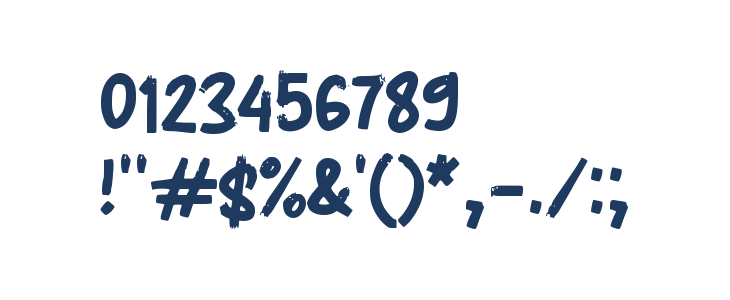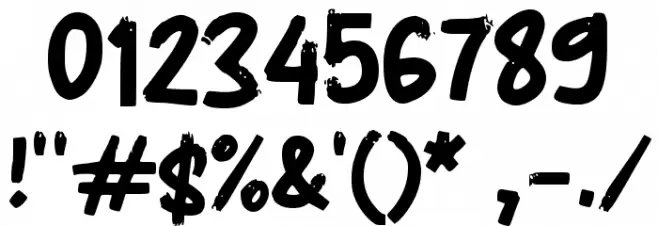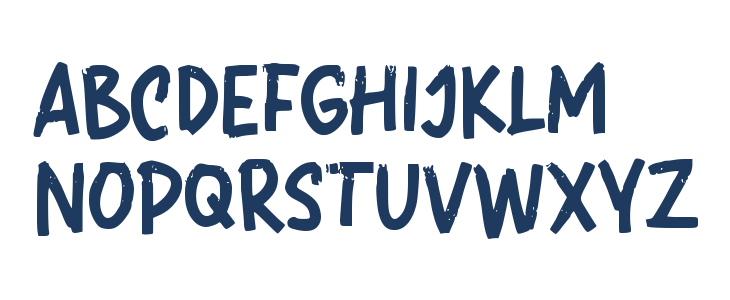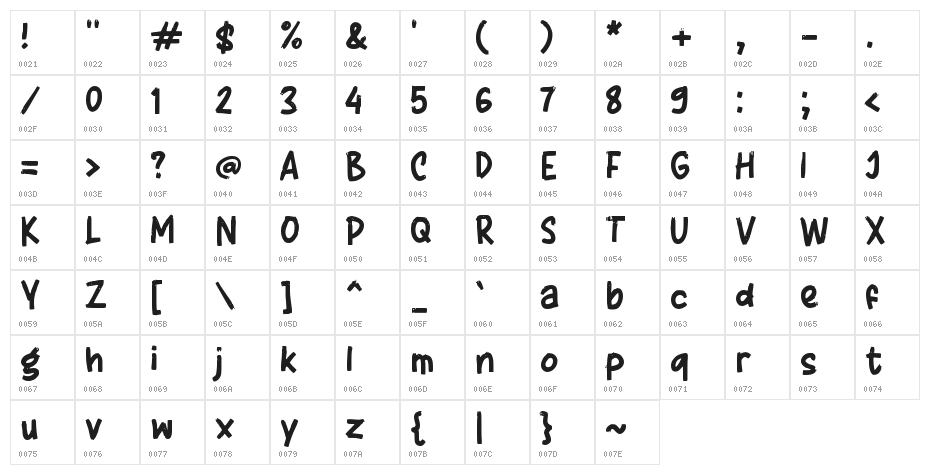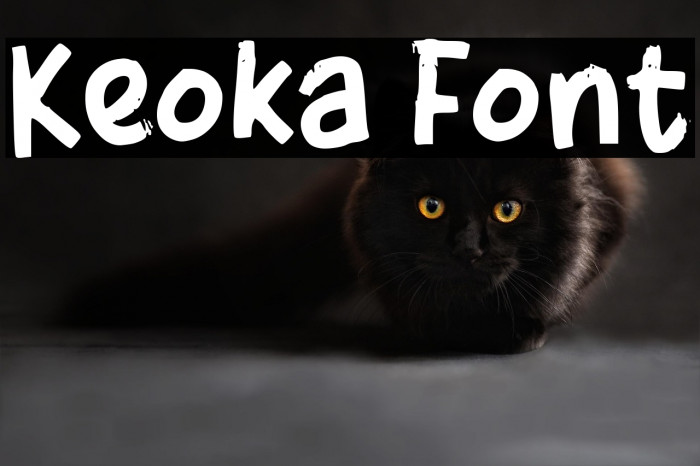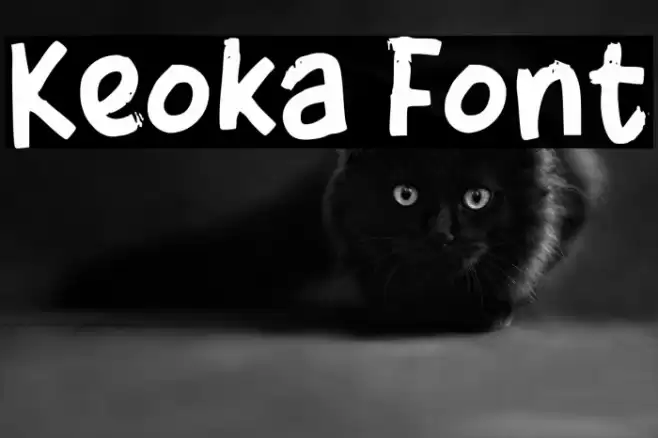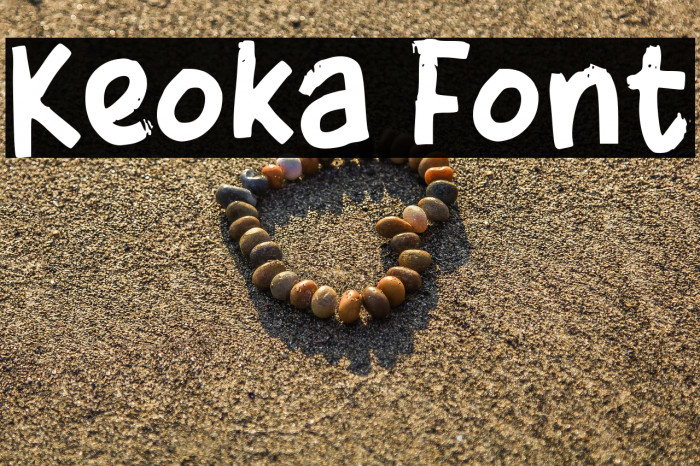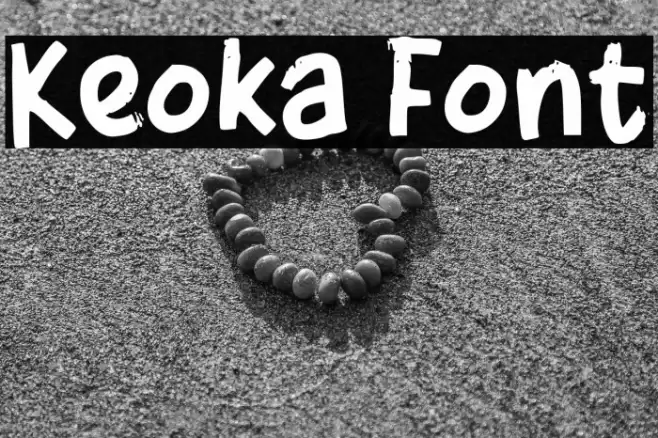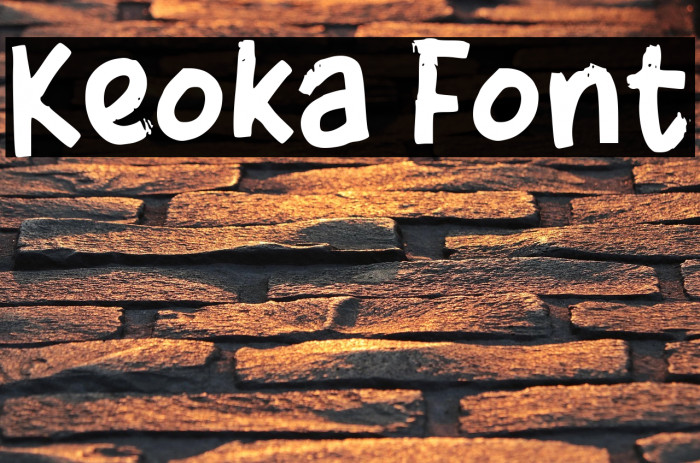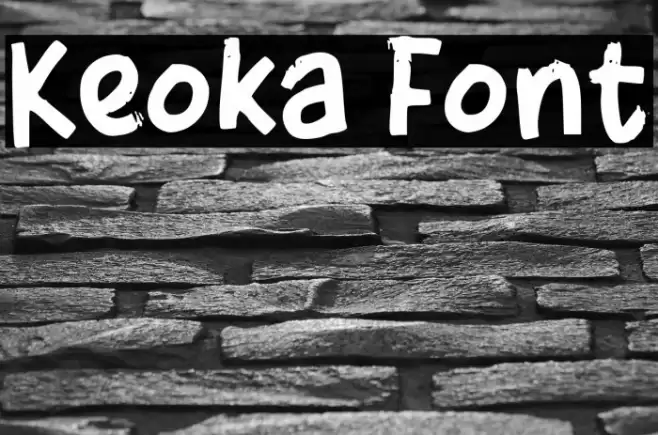
Keoka Font
Keoka Description
A playful, handwritten style font with a casual and slightly rough appearance, featuring irregular strokes and a textured look.
| Overall Style | Casual, Playful, Handcrafted |
| Use Case | Headlines, Body text, Logos, Creative projects |